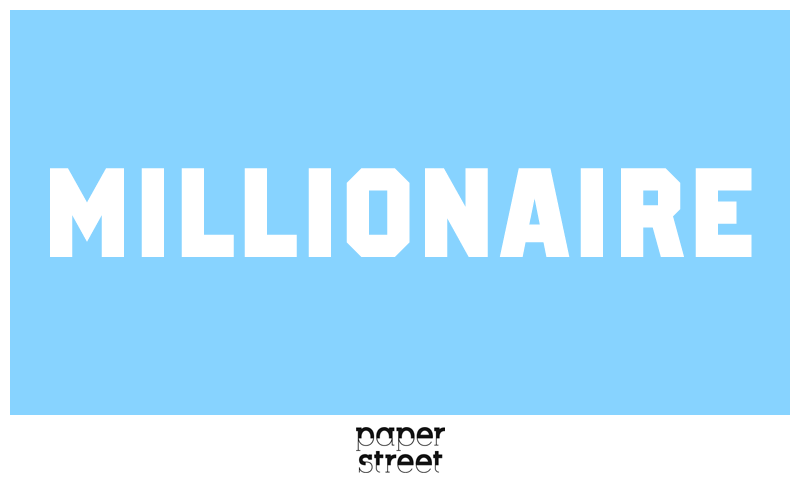
Note of the authorMillionaire is an uppercase bold sports font. It is perfect for your sports-oriented designs as well as massive headlines. The complete version includes 400+ characters and is available here: https://shoptly.com/i/o3s